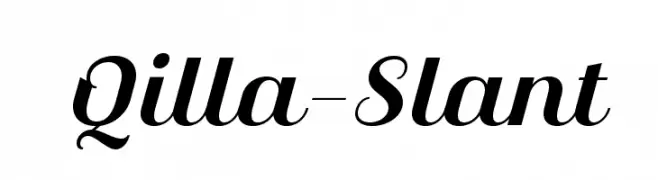
An elegant italic font with smooth curves and a modern twist.
A classic serif font with elegant, decorative elements and modern touches.
Elegant serif font with a slant, featuring moderate contrast and classic styling.
An elegant and modern font with clean lines and a sophisticated design.
An elegant italic typeface with smooth curves and a refined, classic appearance.
An elegant script font with flowing, graceful curves and dynamic slant.
An elegant serif font with decorative swashes and a classic style.
An elegant script font with ornate swirls and flourishes, exuding luxury and sophistication.
An elegant, flowing cursive font with modern and classic elements.
A high-contrast serif font with elegant, refined details.
An elegant italic typeface with smooth curves and a refined, classic appearance.
An elegant serif typeface with a classic italic style and moderate contrast.
A classic serif font with high contrast and elegant strokes.